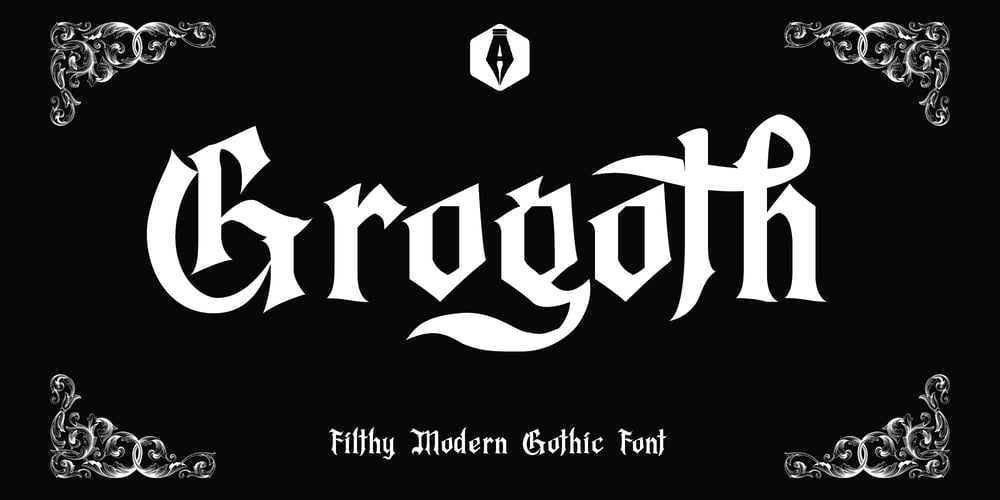
Grogoth Font Family was designed by A A Ngurah A Krisna Teja and published by Anomali Creative. Grogoth contains 8 styles and family package options. Broken letters[1] (German: gebrochene Schrift literally “broken writing”; English: blackletter) or Gothic letters, also known as German letters, are the typeface used in Europe West from the 12th century to the 17th century. Meanwhile, Danish spoke it until 1875 and German, Estonian and Latvian spoke it well into the 20th century. Fracture is one of the broken typefaces that is often considered to represent the entire broken typeface. Broken letters are sometimes also called Old English, but not in the Old English or Anglo-Saxon sense that was born centuries earlier.This group of letters is so named because it contains Latin letters that have breaks in the curvature of the letters, either in part or in whole designs. The fracture arises from a sudden dip when writing certain parts of the letter. In contrast, letters with perfect, unbroken curves, such as Antikua, are created from smooth, flowing writing movements.Grogoth is a font inspired by the Blackletter typeface, made with a modern impression but still looks strong and unique. In addition, Young Best font is also supported with multilingual characters that can be used in several international languages.Grogoth font is very suitable for use in making music album cover designs, tattoo logos, wishkey labels, packaging pomades and so on which are made with dark and strong concepts.Thank you, and don’t forget to check out our other products.